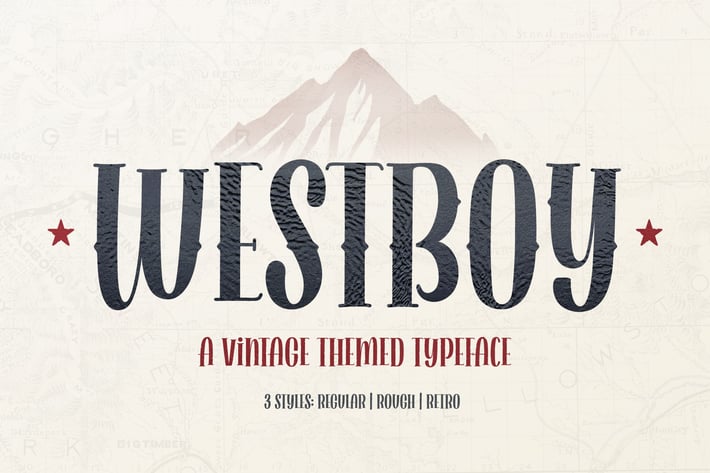
Westboy - Vintage Themed Font
The font was mainly designed for headlines so it you can use it to drive attention to your designs.
Beautiful uppercase letters
3 Styles (Regular, Retro, Rough)